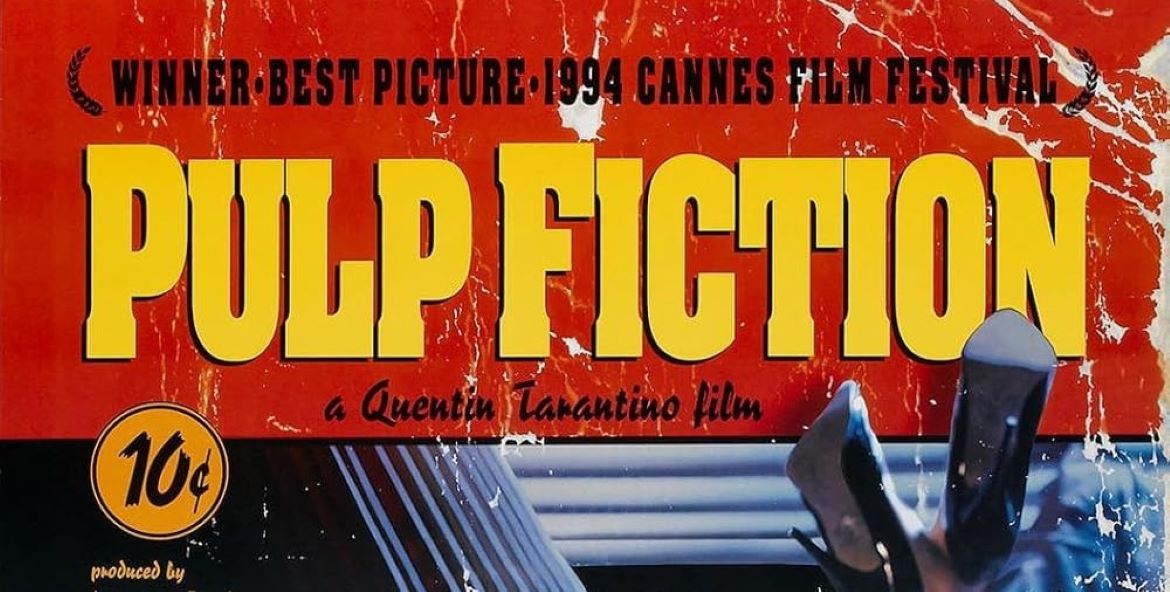
Pulp Fiction Font
Pulp Fiction Font stands as one of modern film’s most instantly identifiable lettering styles. Quentin Tarantino’s 1994 masterpiece remains celebrated for its sharp-witted conversations, audacious narrative approach, and unique visual identity—with its title typography achieving equal iconic status. The vibrant combination of yellow and red in the Pulp Fiction lettering has evolved into a visual hallmark of the film’s throwback, pulp-fiction magazine roots.
The cinematic work itself serves as a tribute to vintage crime tales and sensational paperback novels, with its typography mirroring that same nostalgic graphic sensibility. Its solid, compact appearance commands attention, making it ideal for promotional materials, tribute creations, and designs seeking to achieve a classic movie atmosphere. Creators and enthusiasts regularly choose this typeface when aiming to infuse their projects with that same sophisticated, timeless energy.
While no studio-approved typeface exists, the predominant fan-created interpretation remains Pulp Fiction M54, which faithfully reproduces the distinctive lettering from the film’s introductory sequence. This version successfully emulates the dense, compressed design that gives the title its powerful visual impact.
The ongoing cultural relevance of this typography demonstrates how lettering can transcend design to become a pop culture phenomenon. Much like Tarantino’s groundbreaking film, the typeface remains daring, memorable, and brimming with personality—securing its position as a preferred choice among enthusiasts and designers wanting to incorporate genuine cinematic style into their visual projects.